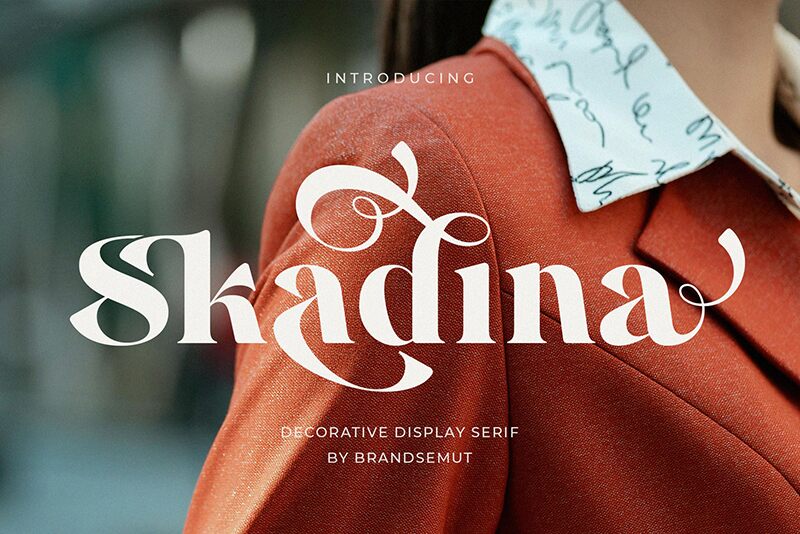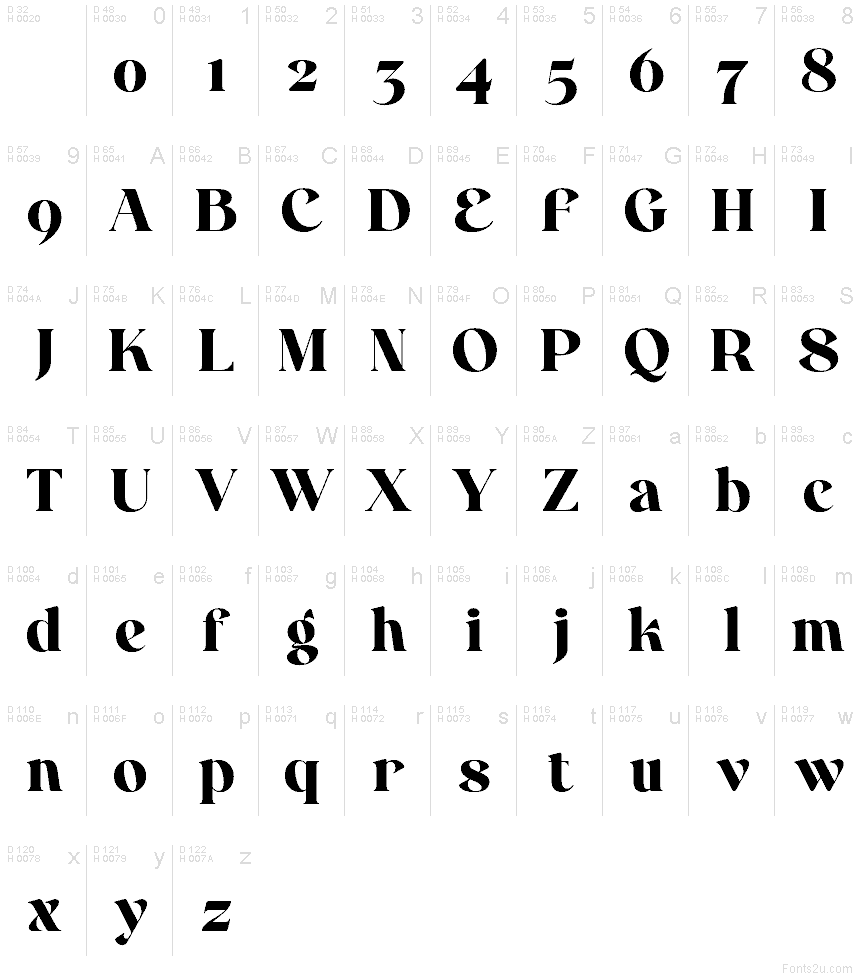
Skadina
Skadina font by BrandSemut is a free serif typeface with thick, inky strokes and bold, sculpted curves that feel almost carved from wood. The chunky verticals, tight spacing, and sweeping arches give it a dramatic, showpiece look that grabs attention without feeling fussy. Those full-bodied letterforms bring a sense of strength and luxury, making even a single word feel like a logo.
Using Skadina, headlines and titles instantly gain weight and character, so it shines on posters, book covers, branding, packaging, social media graphics, and editorial spreads. This free font works beautifully when set large and generously spaced, then paired with a simple geometric sans for smaller supporting text.